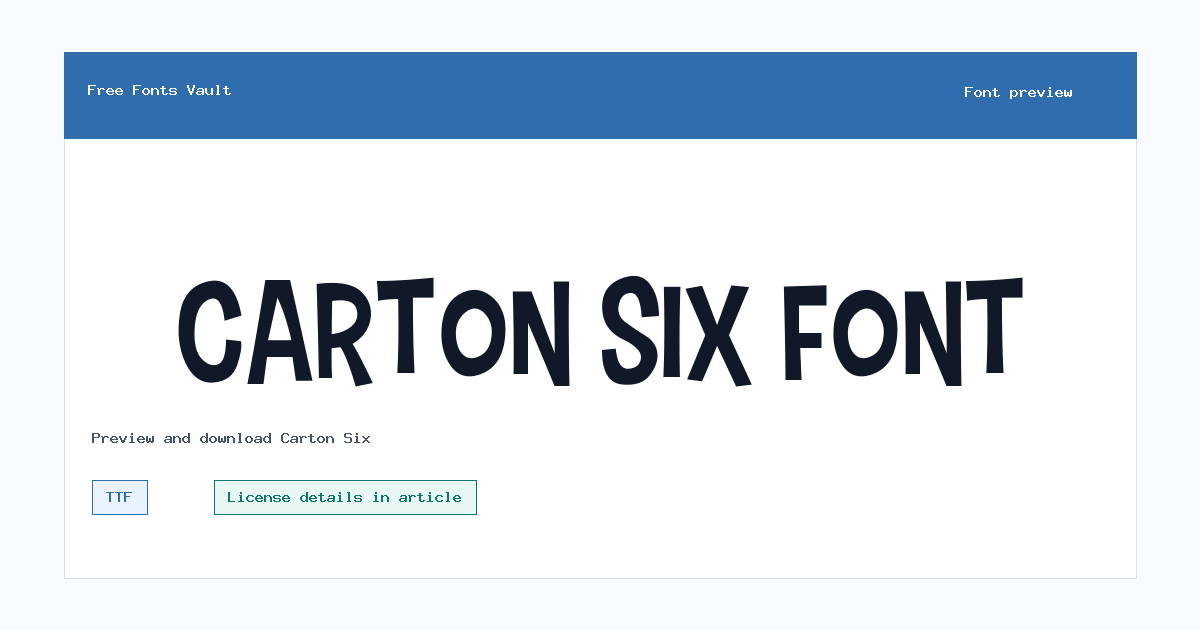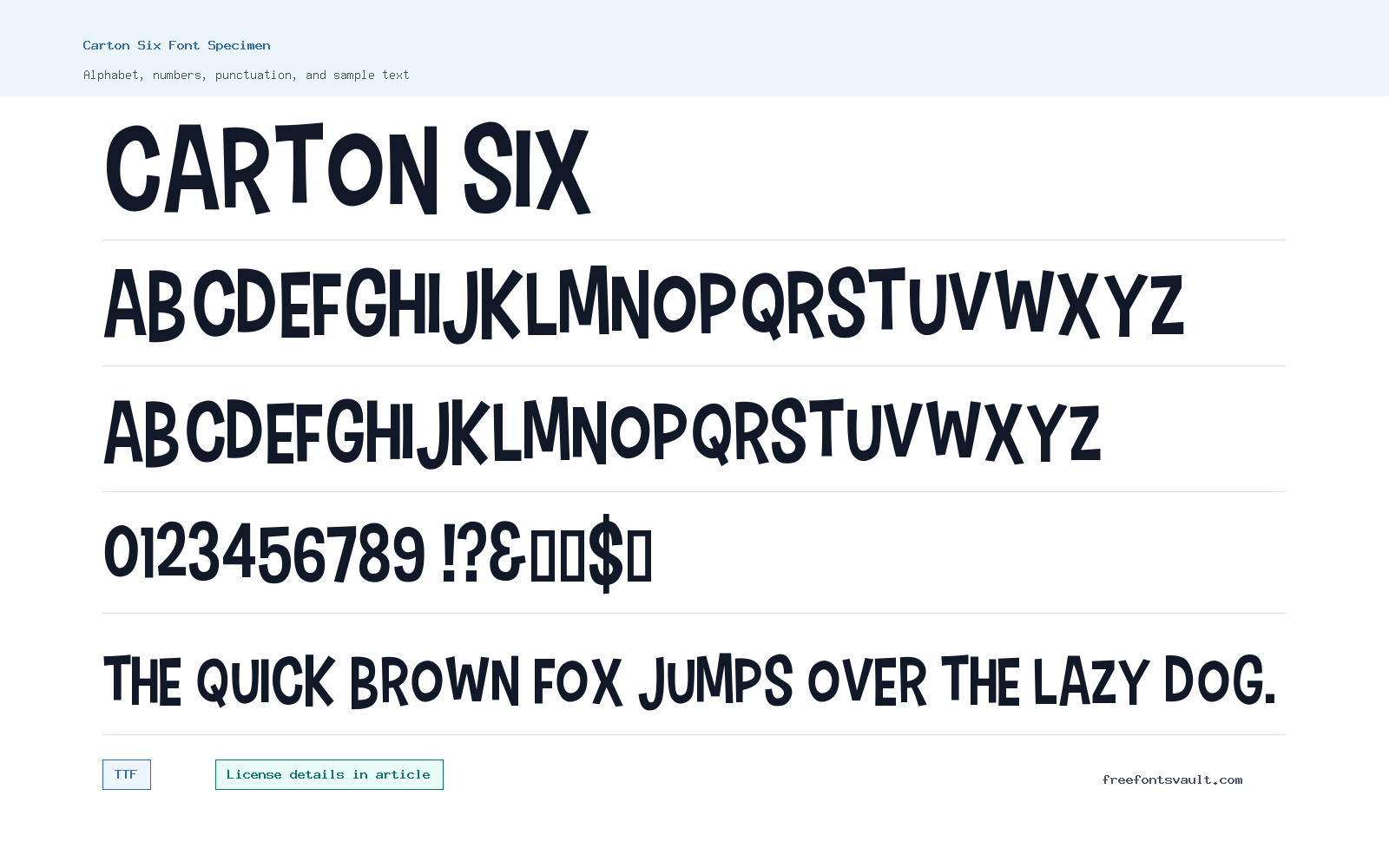
Carton Six
Carton Six font.
Carton Six is a playful cartoon display font with bouncy, hand-drawn letter shapes made for short, cheerful text rather than quiet reading.
About Carton Six
Carton Six has the rounded, comic-style feel of classic cartoon lettering. The letters look loose and animated, which makes the font work well when a design needs a friendly headline, a silly label, or a lighthearted title. Jayvee D. Enaguas is credited with the design, and DaFont describes Cartonsix NC as being inspired by 1960 cartoon fonts.
Use Carton Six for places where the type can be large and expressive: comic panels, kids-event posters, sticker text, YouTube thumbnails, party graphics, playful packaging mockups, and social posts. It is not a good fit for body copy, formal branding, legal text, or long paragraphs. Try your exact words in the preview first, especially if you need punctuation, accents, or tight spacing.
- Cartoon display style with a hand-drawn, rounded look
- Works best at larger sizes where the irregular comic shape can be seen
- Comic titles and speech-style graphics
- Kids party invitations and classroom posters
- Sticker lettering and playful labels
- Fun packaging mockups
- Thumbnails, banners, and social media headlines
- Short words or phrases that need a cartoon mood
Keep Carton Six large, short, and playful. It can lose readability in long sentences or small UI text, so pair it with a simple sans serif for descriptions, dates, menus, and download instructions. If you are making graphics for print, test the TTF in your design app and check spacing around letters like W, M, punctuation, and numbers.
Who designed Carton Six?
The font is credited to Jayvee D. Enaguas / JVEnaguas Productions in public font listings.
What kind of font is Carton Six?
Carton Six is a cartoon-style display font. It is meant for expressive headings, comic graphics, stickers, posters, and other short text.
Can I use Carton Six for body text?
It is better for headlines than body text. For paragraphs or small text, use a cleaner reading font and keep Carton Six for the main title or accent words.